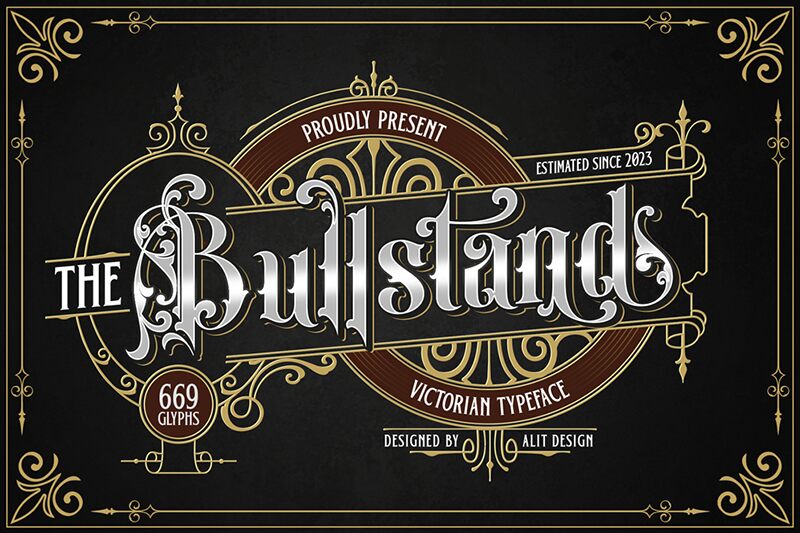
Bullstand font by Alit Design is a free font featuring retro influences and a Victorian-inspired style. Ornate and decorative with elegant, sophisticated details, the font captures a historical charm reminiscent of the past. Its intricate design evokes nostalgia, making it perfect for applications with vintage themes and theatrical flair.
The stylish look of this font makes it a suitable choice for branding, posters, signage, packaging, and more print and digital projects. It has a striking presence that is perfect for headlines on websites, magazines, and newsletters. Bullstand’s timeless appeal also works great for social media, invitations, and other fun personal projects.